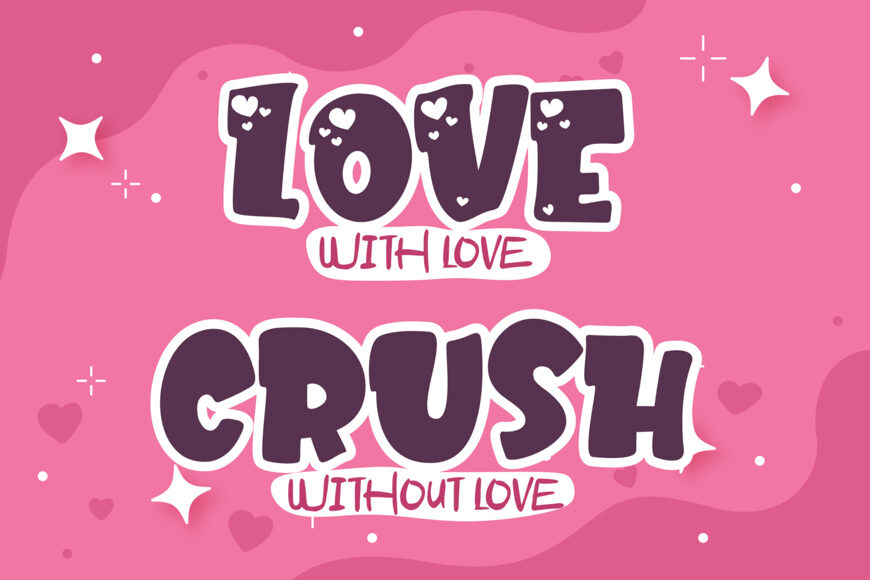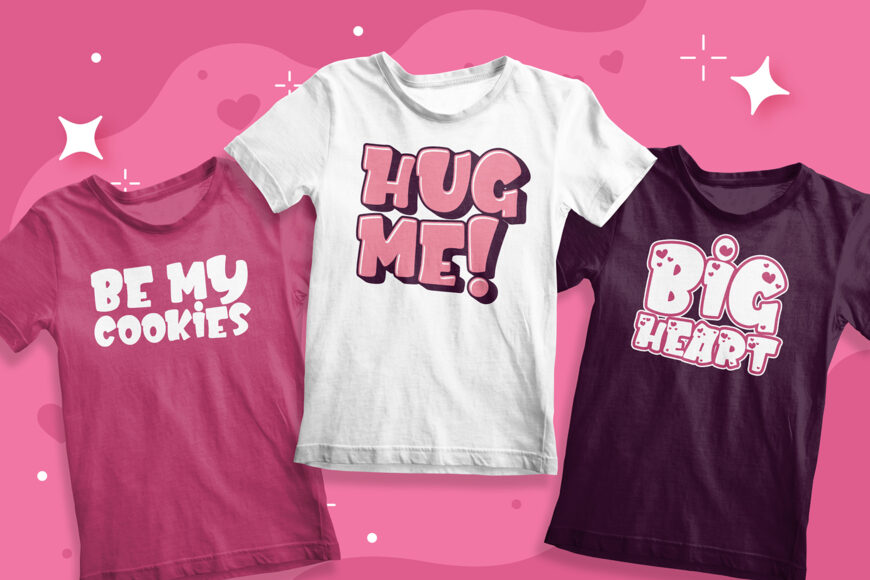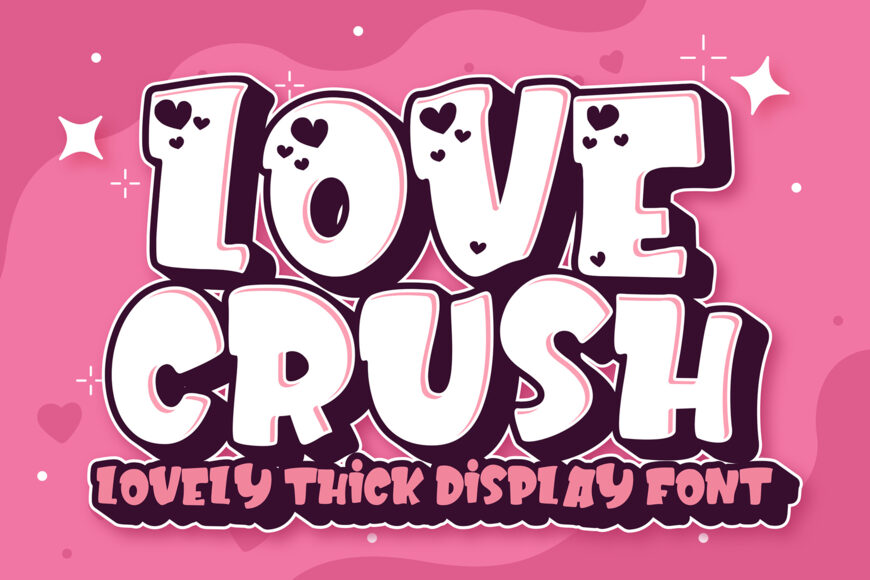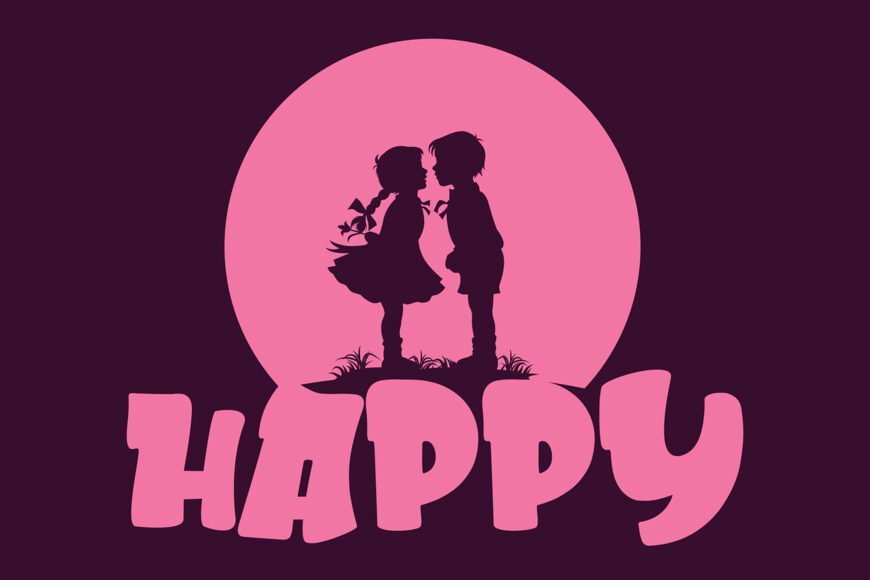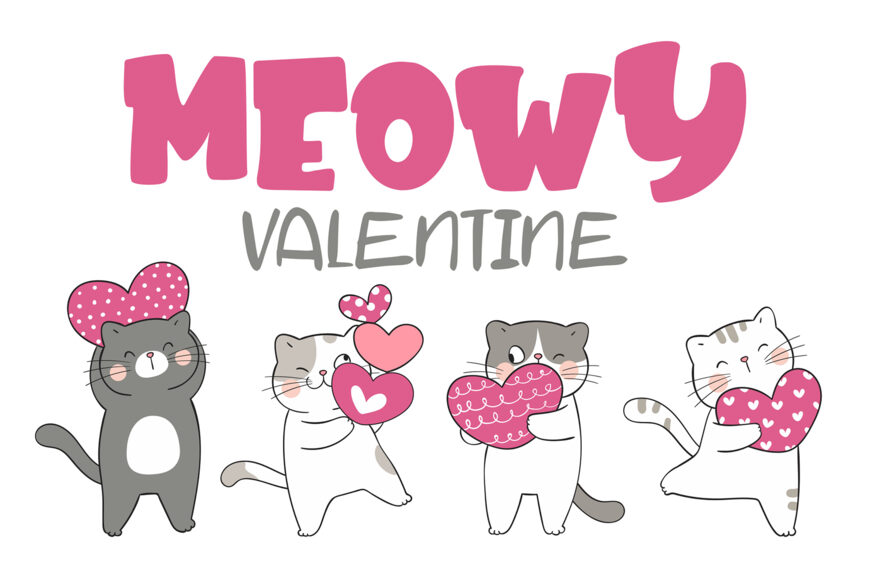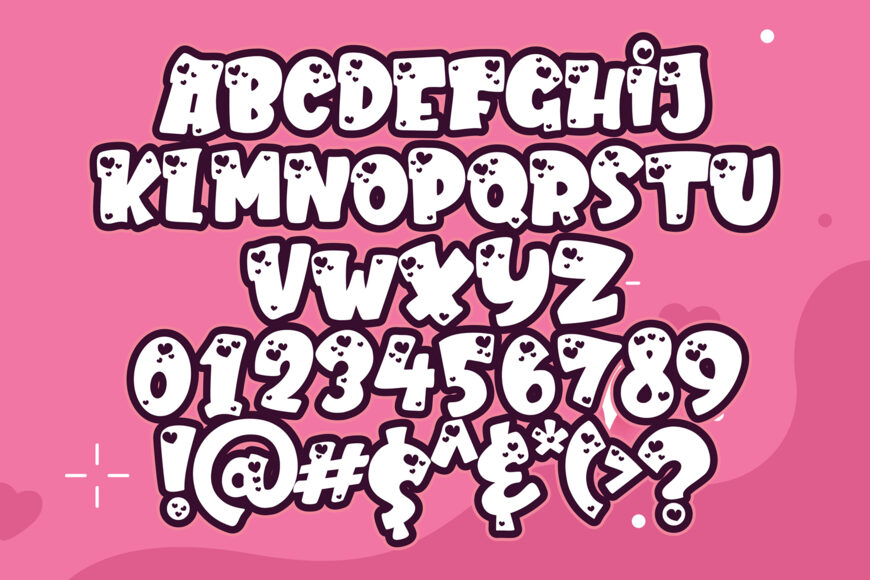
Love Crush is a lovely and all-caps display font featuring both clean and decorative styles. Its warm, expressive character makes it ideal for romantic branding, packaging, greeting cards, cute designs, Valentine’s Day projects, social media graphics, quotes, stickers, and merchandise.
With two complementary styles, Love Crush offers versatility for creating charming headlines and eye-catching decorative typography.